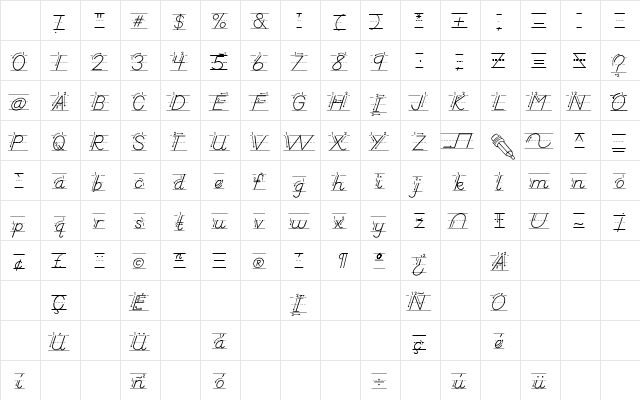
Complete AbcDNManusArrow Regular glyph index. Displaying only characters natively supported by AbcDNManusArrow Regular font.
AbcDNManusArrow is a composed and adaptable typeface that performs quietly and consistently across a wide range of design contexts.